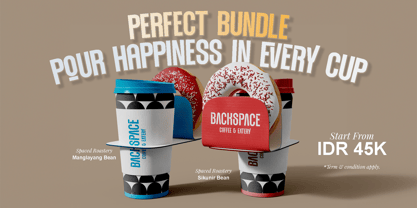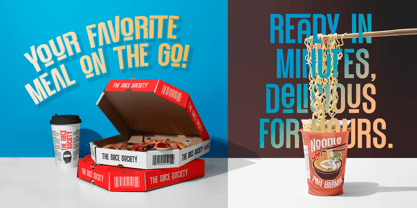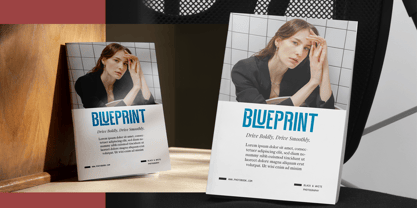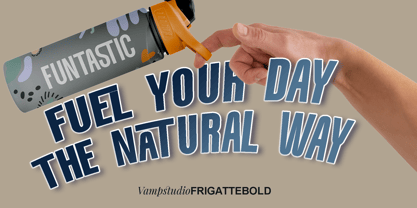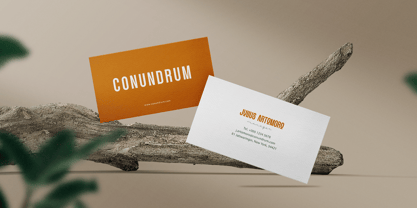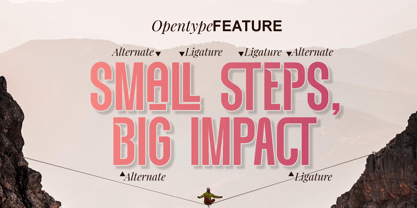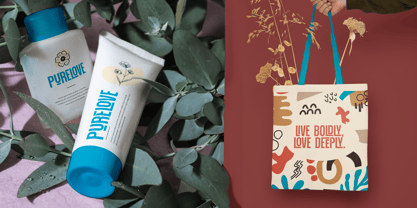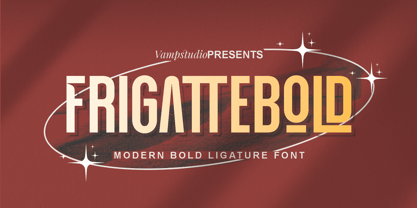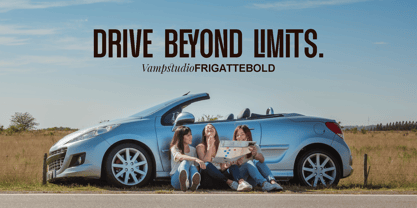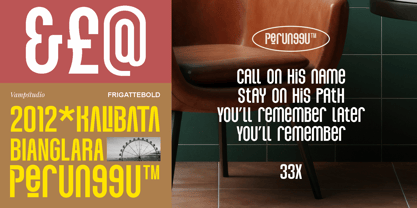
Frigattebold
by Vampstudio
The Frigattebold Font Family was designed by Irfan syah and published by Vampstudio. Frigattebold contains 1 styles. More about this family
Frigattebold is a futuristic display font with a retro twist—bold, modular, and irresistibly quirky. Designed for expressive headlines, signage, and branding, its elongated vertical strokes and unusual character construction evoke a distinct personality. This font blends neo-deco aesthetics with a techno-industrial spirit, making it perfect for album covers, editorial layouts, fashion campaigns, or streetwear branding. Whether you're channeling vintage futurism or bold postmodern energy, Frigattebold keeps your message unforgettable.